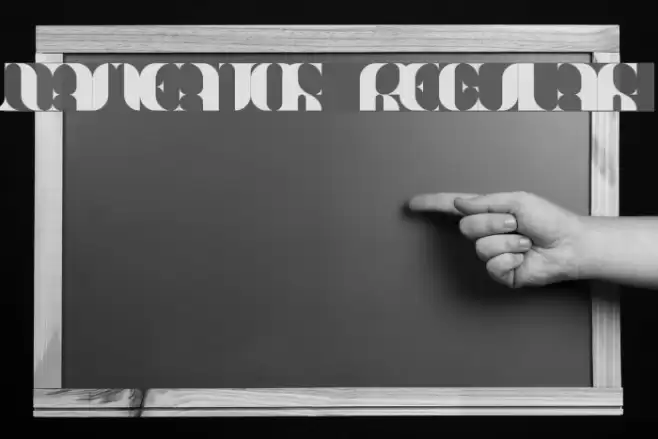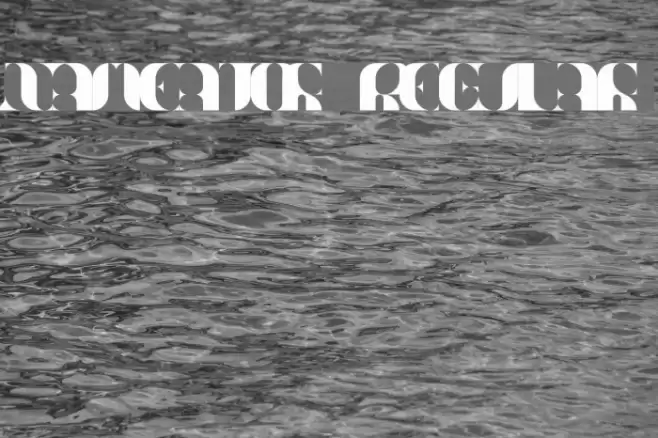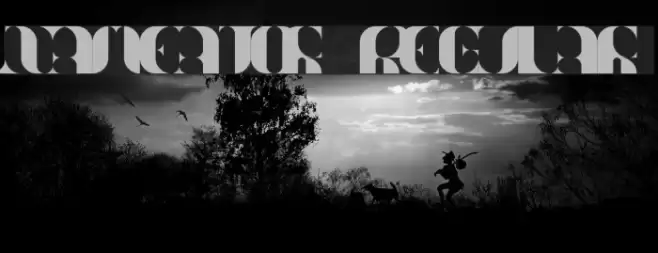
Nameator Regular Font
Nameator Regular Description
This font features a bold and geometric design with a unique interplay of negative and positive spaces. The characters are constructed with thick, solid strokes that create a striking visual impact. The use of circular and semi-circular shapes within the letters adds a modern and artistic flair, making it stand out as a decorative typeface. The font maintains a consistent weight throughout, contributing to its bold appearance. The spacing between characters is tight, enhancing its compact and cohesive look. This font is ideal for projects that require a contemporary and eye-catching style.
A bold, geometric font with artistic negative space and circular elements from Uncategorized fonts.
- Proposed Projects: Ideal for branding, poster design, album covers, and modern art projects.
- Character Spacing: Tight